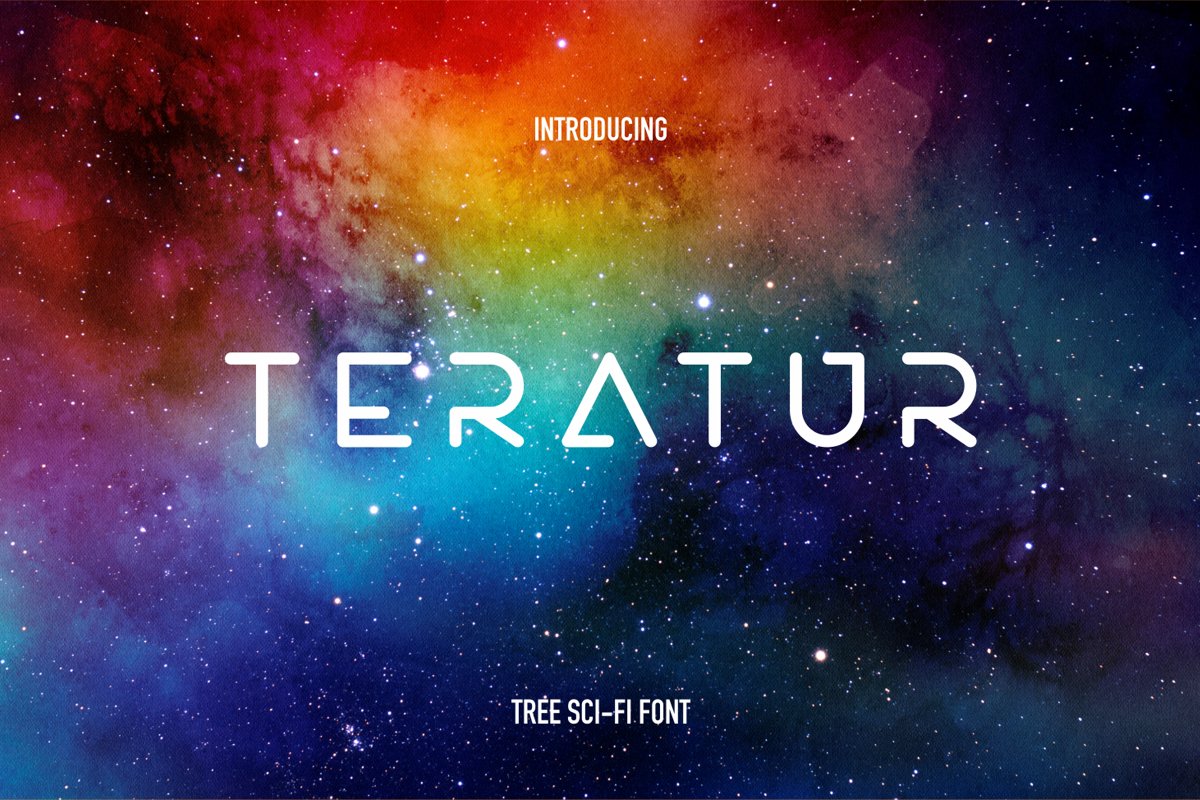
Teratur Typeface ( 3 Font)
Teratur is a modern, minimal and clean with round shape font family. Teratur comes in thin,regular and bold weights. Toggle caps lock to use the alternate letters.